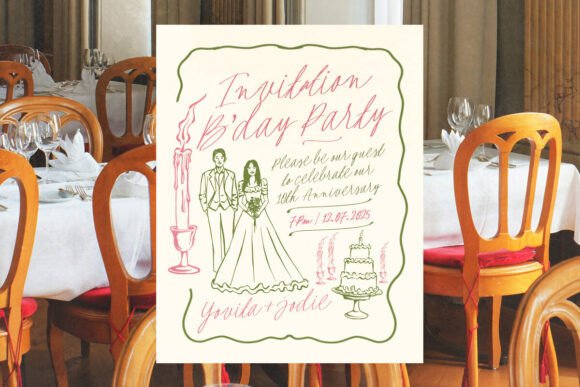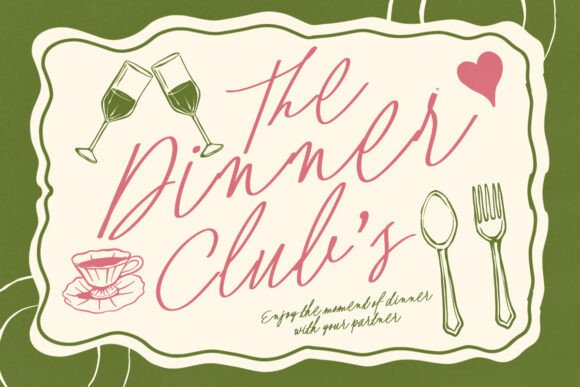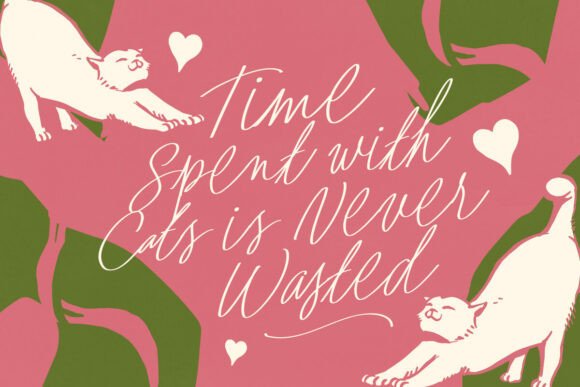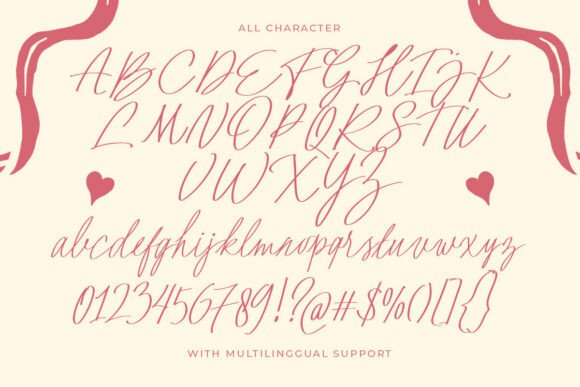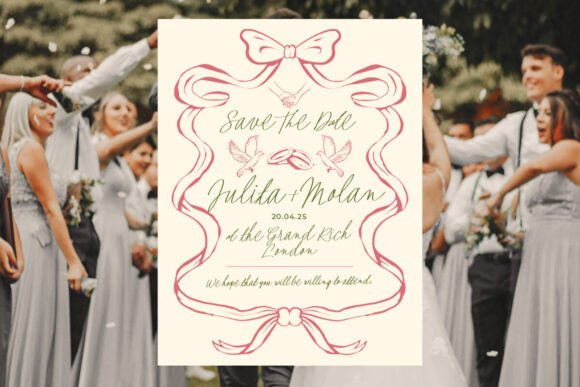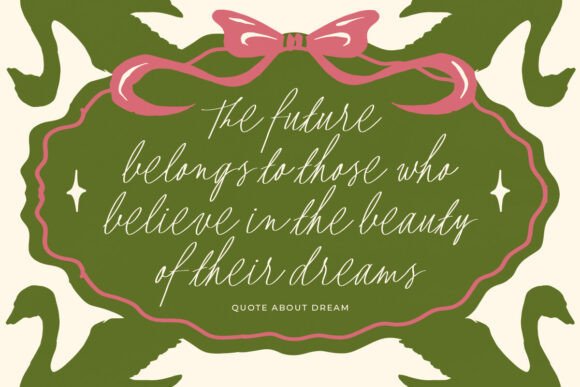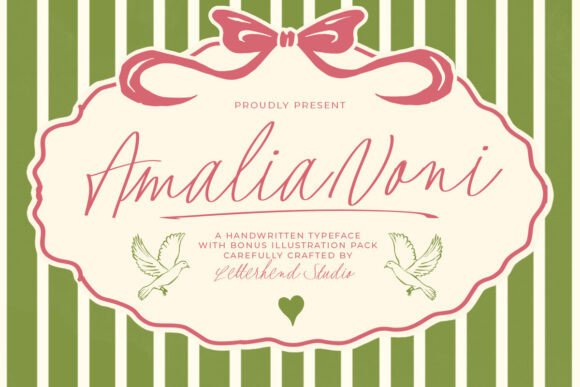
Introducing Amalia Noni Font: The Charming Handwritten Typeface for Romantic Designs
Are you looking for a font that exudes romance, whimsy, and a touch of vintage charm? Look no further than Amalia Noni Font, a beautiful handwritten typeface that’s perfect for crafting stunning designs. In this article, we’ll dive into the features and benefits of Amalia Noni, and explore how it can elevate your creative projects.
A Font with a Personal Touch
Amalia Noni Font is a charming handwritten typeface that boasts flowing, natural strokes, giving it a personal and heartfelt feel. Its unique character makes it ideal for designs that require a touch of elegance and sophistication. Whether you’re creating wedding stationery, packaging, feminine branding, or greeting cards, Amalia Noni is the perfect choice.
Perfect for Romantic Designs
Amalia Noni Font is specifically designed to evoke a sense of romance and whimsy. Its vintage flair and charming strokes make it perfect for:
- Wedding stationery: Create beautiful wedding invitations, save-the-date cards, and ceremony programs that set the tone for a romantic and unforgettable day.
- Packaging: Add a touch of elegance to your product packaging with Amalia Noni, making it perfect for luxury brands and small businesses.
- Feminine branding: Create a strong brand identity with Amalia Noni, ideal for businesses that cater to women or offer feminine products and services.
- Greeting cards: Design beautiful greeting cards for special occasions, such as birthdays, anniversaries, and holidays.
Bonus Illustration Pack
But that’s not all! Amalia Noni Font also comes with a bonus illustration pack, featuring delightful extras that pair beautifully with the script. This pack includes:
- Illustrations of flowers, leaves, and other natural elements
- Vintage-inspired frames and borders
- Whimsical icons and graphics
These illustrations will enhance your creative options and allow you to add an extra touch of personality to your designs.
Why Choose Amalia Noni Font?
So, why should you choose Amalia Noni Font for your next project? Here are just a few reasons:
- Unique and charming design: Amalia Noni stands out from other fonts with its distinctive handwritten style.
- Versatile: Use Amalia Noni for a wide range of projects, from wedding stationery to packaging and branding.
- High-quality: Amalia Noni is a high-quality font that’s designed to produce crisp and clear results, even at small sizes.
Tips for Using Amalia Noni Font
To get the most out of Amalia Noni Font, here are a few tips:
- Pair Amalia Noni with a simple sans-serif font for a striking contrast.
- Use Amalia Noni for headlines and titles, and a simpler font for body text.
- Don’t be afraid to get creative and try new things – Amalia Noni is a versatile font that can be used in many different ways.
Amalia Noni Font is a charming handwritten typeface that’s perfect for crafting romantic and whimsical designs. With its flowing, natural strokes and vintage flair, it’s ideal for wedding stationery, packaging, feminine branding, and greeting cards. The bonus illustration pack adds an extra layer of creativity to your projects, allowing you to add a personal touch to your designs. Whether you’re a designer, crafter, or DIY enthusiast, Amalia Noni Font is a must-have addition to your font collection.